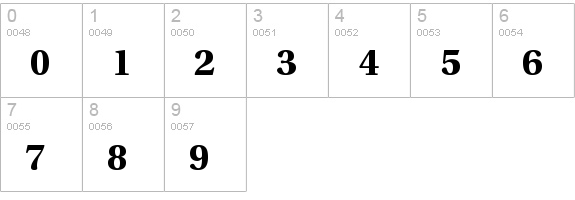
Utopia Std Bold Font Details
Utopia Std Bold is a strong, high-contrast variant in the Utopia typeface family \xE2\x80\x94 well suited to headlines, attention-grabbing titles, and strong calls-to-action.
Utopia Std Bold font is a bold and captivating typeface that exudes confidence and modernity. With its strong and sturdy letterforms, Utopia Std Bold demands attention and makes a bold statement in any design project. This font is the perfect choice for headlines, titles, and branding materials, as it effortlessly captures the essence of strength and elegance. Its bold weight ensures maximum impact, while its balanced proportions create a harmonious and visually pleasing composition. Utopia Std Bold is not only visually striking but also highly versatile. It can be used in a variety of design contexts, from print to digital media, bringing a touch of sophistication and professionalism to any project. What makes Utopia Std Bold even more appealing is that it is freely available to download at FontsMarket.com. This means that designers, creatives, and enthusiasts can easily access this remarkable font and incorporate it into their work without any hassle. Whether you're a professional designer or just starting out, Utopia Std Bold is a valuable asset to have in your font collection. So, if you're looking to make a bold statement with your typography, Utopia Std Bold is the ideal choice. Its captivating and powerful design, combined with its availability for free download at FontsMarket.com, make it a must-have font for any design project.